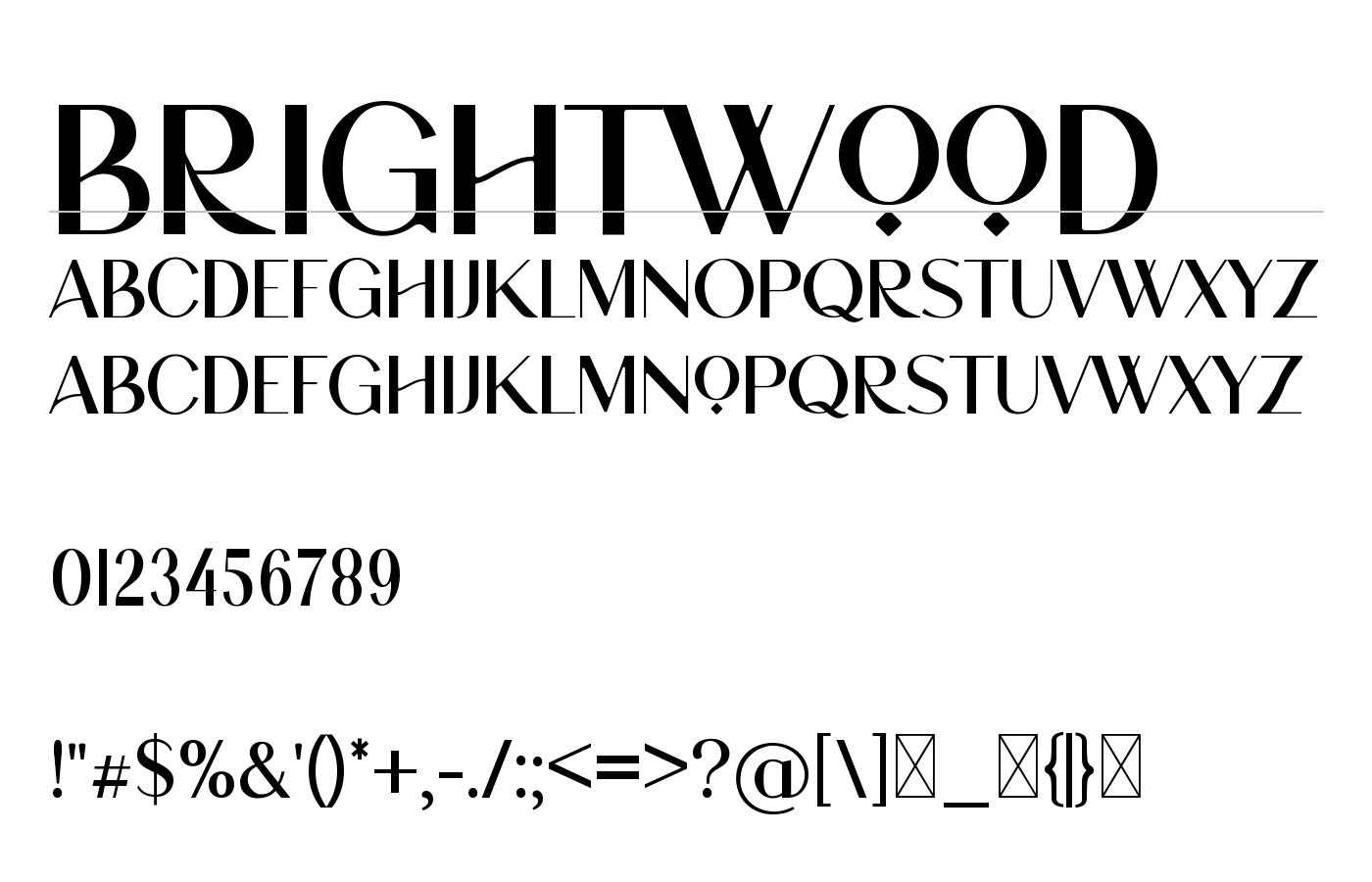
Brightwood is an elegant serif font with a modern twist, featuring high contrast between thick and thin strokes and unique, stylized terminals that give it a sophisticated, artistic feel. Its tall, narrow letterforms and sharp serifs make it ideal for luxury branding, fashion magazines, and striking headlines where a refined and creative look is desired. This font stands out with its distinctive flair while maintaining readability, perfect for projects that want to convey elegance with a contemporary edge.
Brightwood Font
About Brightwood Font